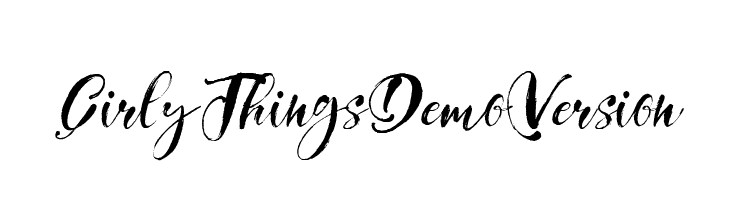
A playful and elegant script font with calligraphic flair.
A playful, elegant cursive script with a hand-drawn feel.
Elegant handwritten script font.